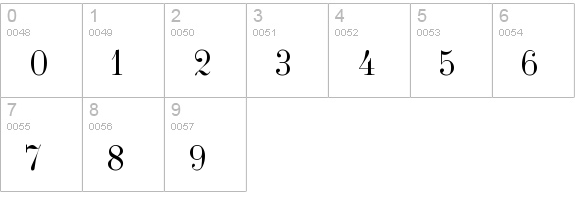
MgMemoriesApla Plain Font Details
MgMemoriesApla Plain font is a versatile and modern typeface that combines elegance with simplicity. With its clean lines and easy readability, this font is perfect for a wide range of design projects, from branding to editorial design. The timeless appeal of MgMemoriesApla Plain font makes it a must-have addition to any designer's toolkit. The best part about MgMemoriesApla Plain font is that it is available for free download at FontsMarket.com. This means that you can effortlessly access this high-quality font without any cost, making it an excellent choice for budget-conscious designers looking to enhance their projects with a touch of sophistication. Whether you're working on a logo, website design, or any other creative project, MgMemoriesApla Plain font is sure to elevate your work with its classic style and timeless appeal. Download this font for free today and add a touch of elegance to your designs!